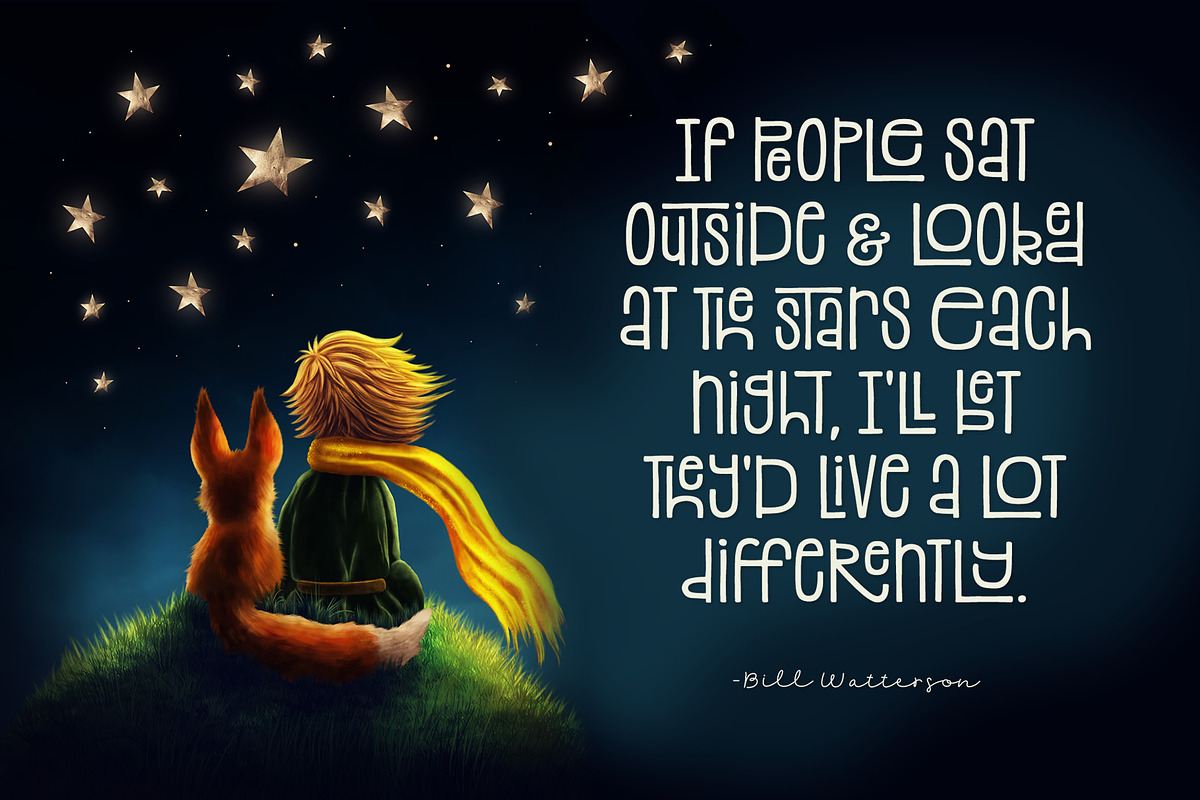
Stacked Font
Stacked Font by Denise Chandler is a font selected for branding, posters, packaging, typography.
- Cleaned it up a bit, made a few changes, added opentype features, and over 50 new ligatures!
- Stacked is a fun and unique font that comes with individual characters as well as 2-3 letters stacked together.
Why Stacked Font is worth a look
Stacked Font by Denise Chandler fits naturally into Branding, posters, packaging, typography.